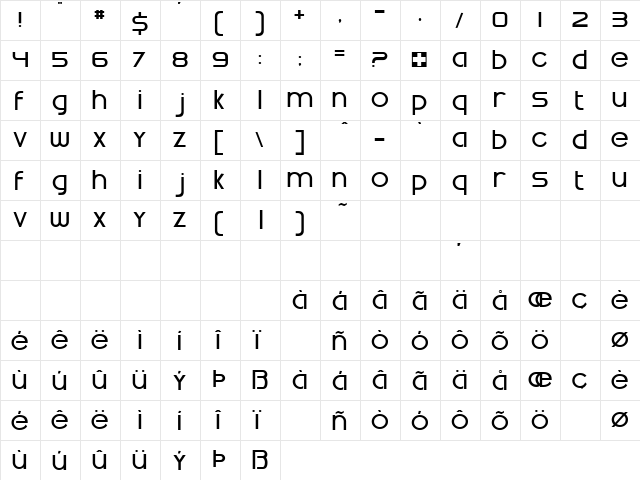
Swatch it Regular
Design Context for Swatch it Typeface
Swatch it is a composed and adaptable typeface that performs quietly and consistently across a wide range of design contexts.